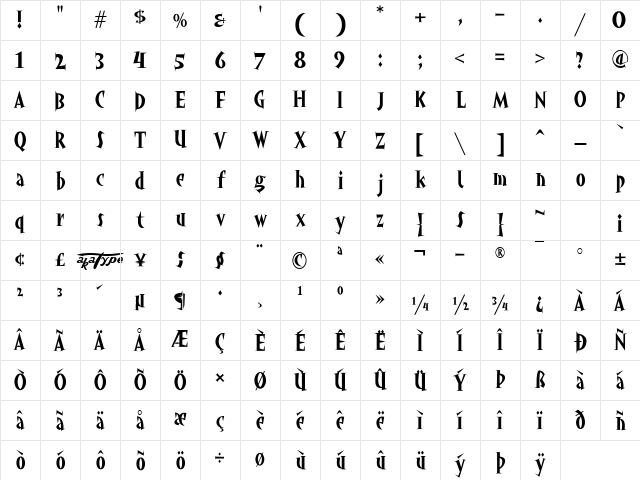
akaHoggle Regular
Foundry: James Milligan
Designer: James Milligan
Design Context for akaHoggle
akaHoggle is a composed and adaptable typeface that performs quietly and consistently across a wide range of design contexts.